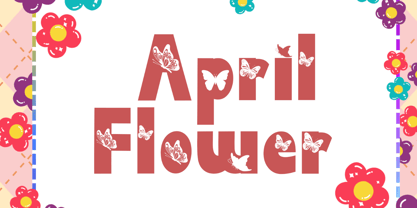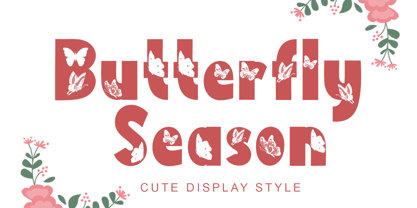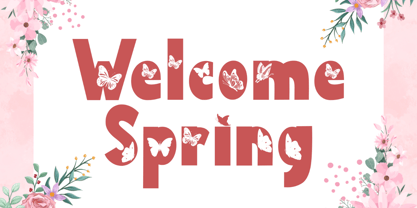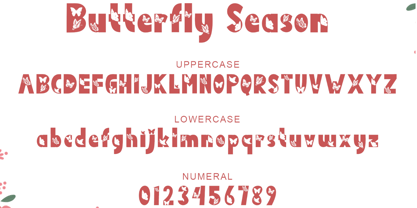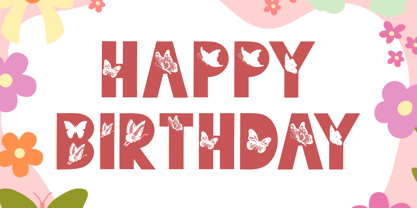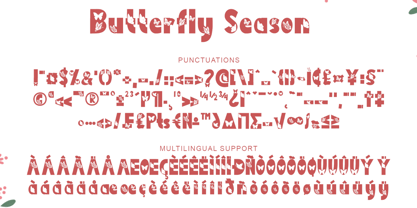
Butterfly Season
by Selvia Design
The Butterfly Season Font Family was designed by Isroni Yoga Prasetya and published by Selvia Design. Butterfly Season contains 1 styles. More about this family
"Butterfly Season" is a display font with butterfly decoration on each letter. This font is equipped with uppercase, lowercase, numeral, punctuations and multilingual support. Very suitable for use for spring, summer, holiday, posters, banners, branding, stickers, logos and others.
Designers: Isroni Yoga Prasetya
Foundry: Selvia Design